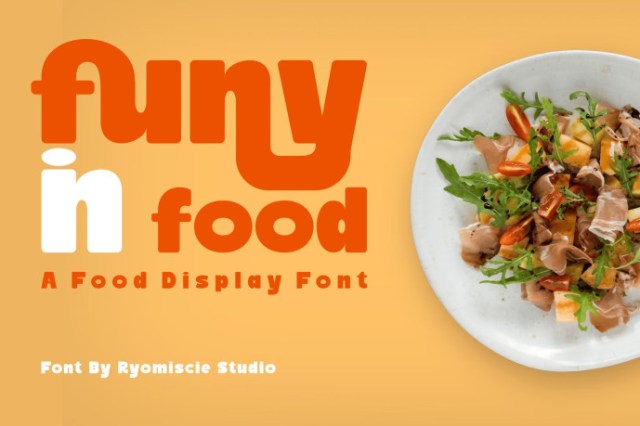
Funy In Food Display Font
Funy In Food Display Font – Modern Font is a bold and authentic display font. The font is suitable for any branding project like logo, esport, and many more. outstanding in a wide range of contexts.
• Uppercase
• Lowercase
• Ligature